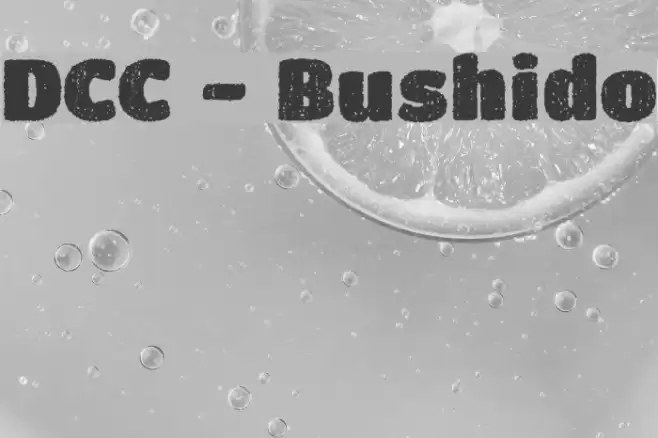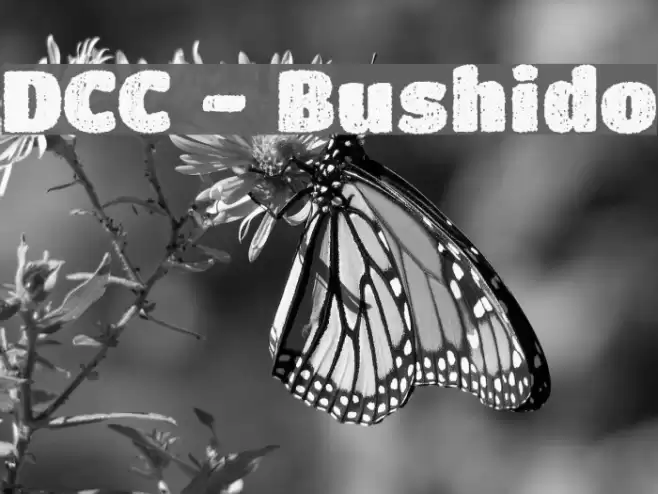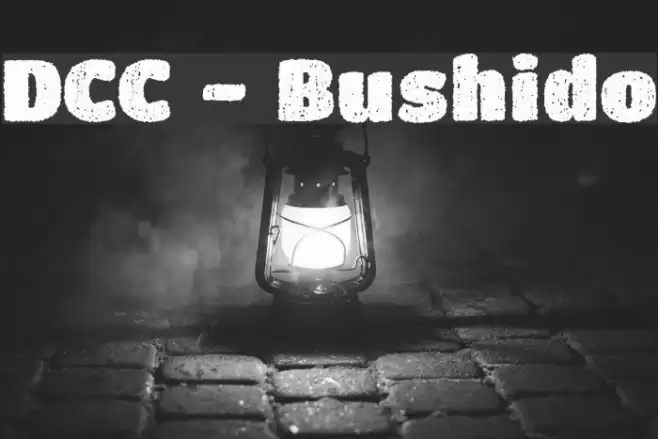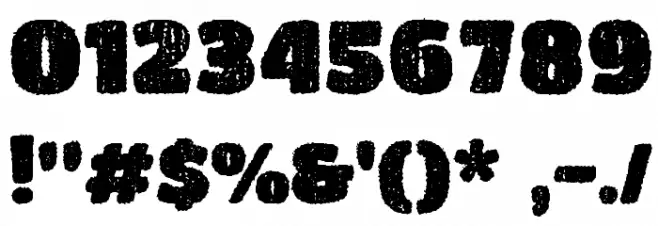
DCC - Bushido Font
DCC - Bushido Description
This font features a bold and rugged appearance, characterized by its distressed texture that gives it a vintage and worn look. The letters are thick and robust, with a slightly uneven surface that adds to its rustic charm. The uppercase and lowercase letters maintain a consistent style, with rounded edges and a substantial presence. The numbers and special characters follow the same design principles, ensuring uniformity across all glyphs. This font's unique texture makes it stand out, providing a sense of history and character.
A bold, distressed font with a vintage, rugged texture from Distorted Eroded fonts.
- Proposed Projects: Ideal for projects that require a vintage or rustic feel, such as posters, branding for outdoor or adventure-themed products, and retro-style designs.
- Overall Style: Vintage
- Use Case: Logos, Posters, Branding